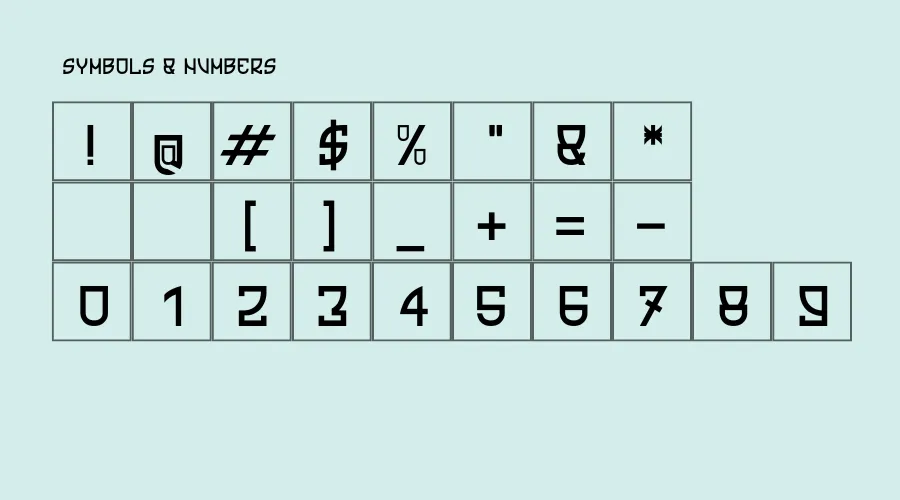
Ultras Liberi Font
About Ultras Liberi Font
The Maccio is the designer of the Ultras Liberi Font and belongs to the retro texture family. A glamorous font with multiple kinds of styles, numerals, lining, and text figures. With all the bold letters in this font family, your design will look more sophisticated and classier.
Various font families have defined functions that make them unique. It a cool font based on is with thick strokes and contact in each letter’s rounded corner.
To create a unique and eye-catching design, you should use this font in combination with other fonts. Any occasion will be enhanced by this beautiful, romantic typeface. If you want to add a little romance to your wedding invitations or simply want to make a loved one’s birthday card extra special, then this typeface is for you.
Name Ultras Liberi Font
Designer Maccio
Style Retro
This typeface works well when used in garment designs for items like t-shirts, and pants. It will also be used to create amazing material and images in a variety of styles.
Can I utilize the Ultras Liberi Textual style for my symbol design?
Yes, you’ll be able to utilize this typeface for your symbol because it will give an exclusive and antique sense to your work.
Who designed the Ultras Liberi Font?
The Maccio-designed Ultras Liberi Typeface is a retro style.
Does Ultras Liberi Font have good readability?
A substantial character set and unique glyphs are included in the font. This typeface is easy to read, and that’s what makes it so elegant.